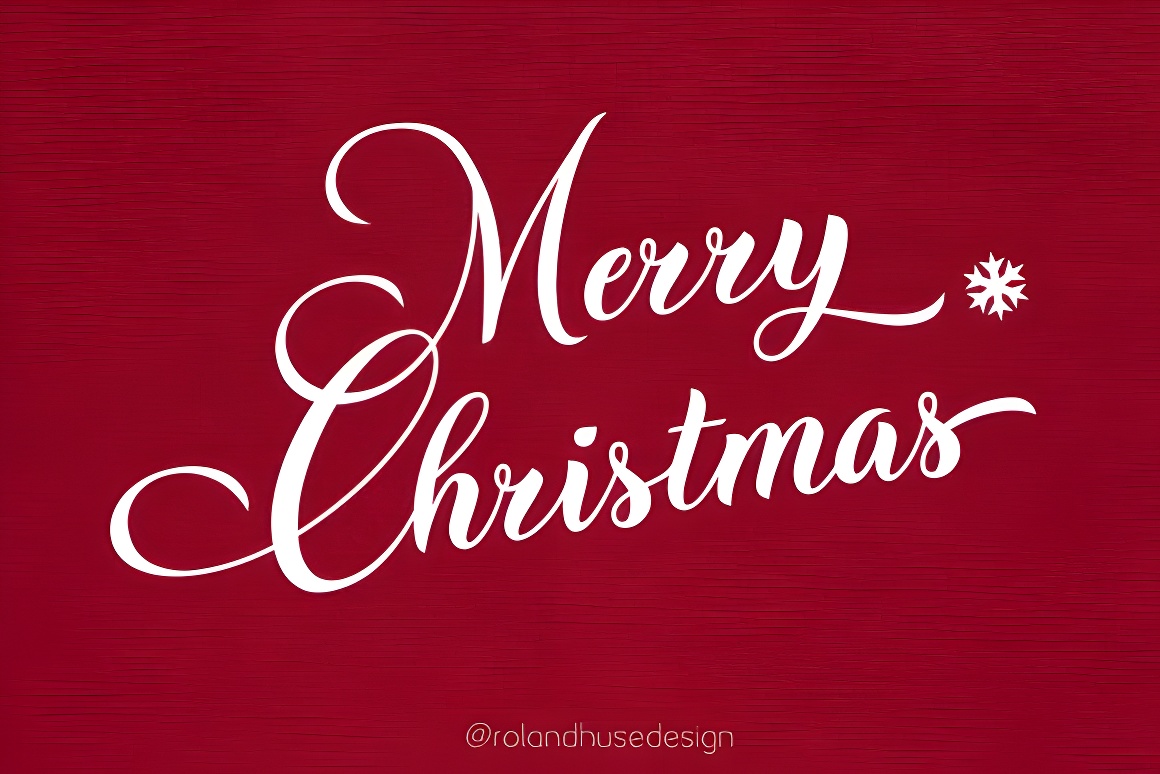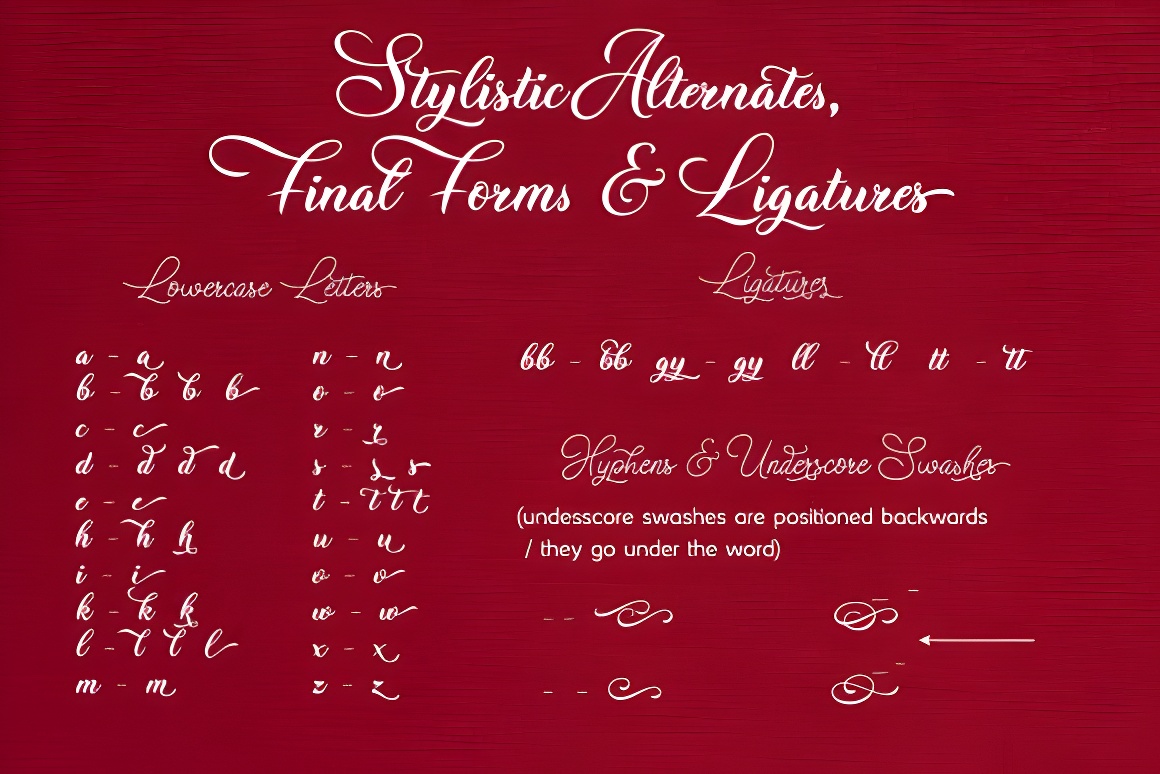
Christmas Wish is a gorgeous cursive brush font with a calligraphy style. It comes in two weights: a thin monoline and a brush calligraphic version. It brings amazing alternates and swashes that will cheer up your holidays projects!